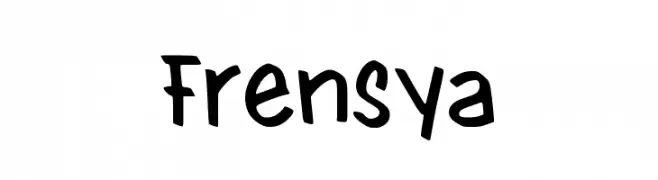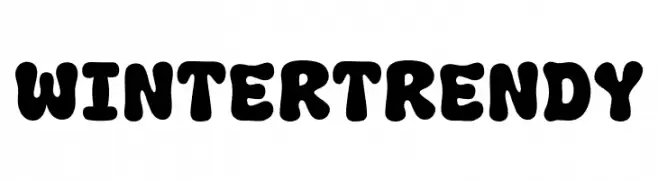
A playful, rounded font perfect for children's projects and fun designs.
A bold, flowing script font with an elegant, handwritten style.
A playful, rounded font perfect for children's content.
A bold, modern sans-serif font with a clean and structured design.
A bold, distressed font with a rugged, vintage feel.
A bold, angular font with a strong, modern aesthetic.
A playful, handwritten-style font with a casual and friendly vibe.
A playful, bold typeface with rounded edges, ideal for children's projects.
A bold, playful font with rounded edges and a vintage feel.
A dotted line font perfect for educational and children's projects.